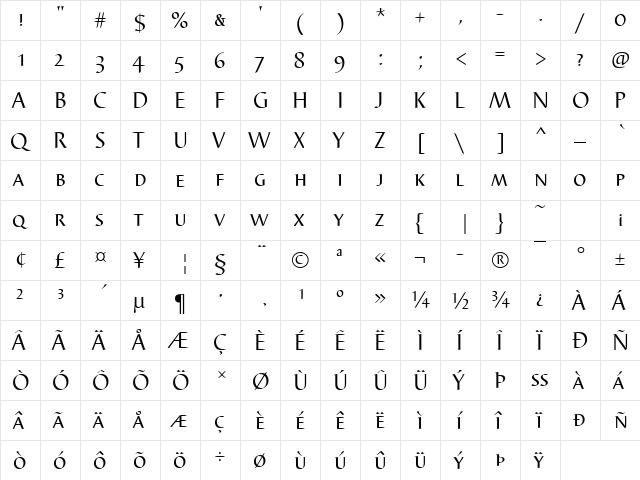
BarbedorSCTReg Regular Font Preview
BarbedorSCTReg Regular
Design Context for BarbedorSCTReg Typeface
BarbedorSCTReg is a composed and adaptable typeface that performs quietly and consistently across a wide range of design contexts.